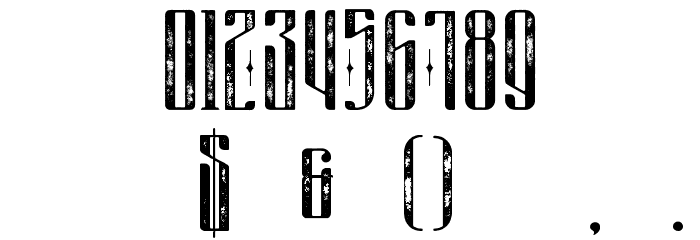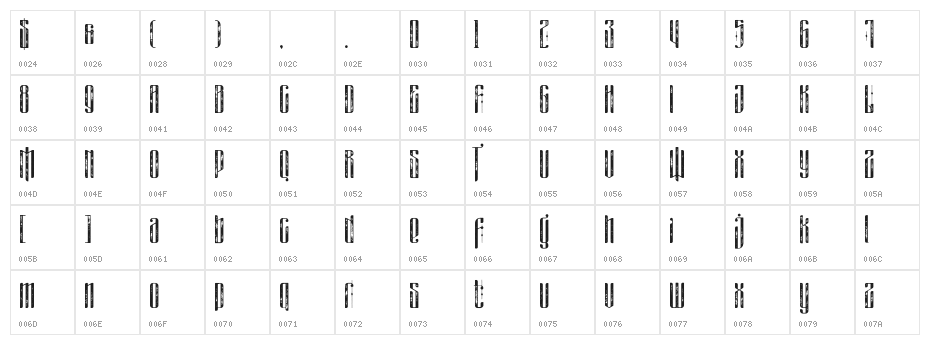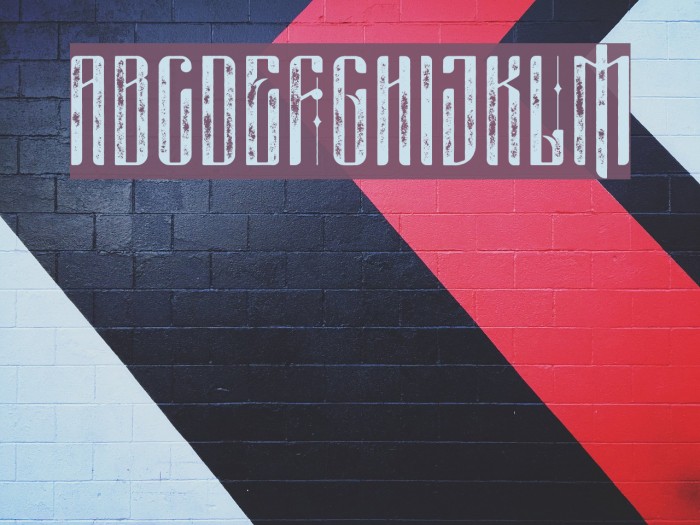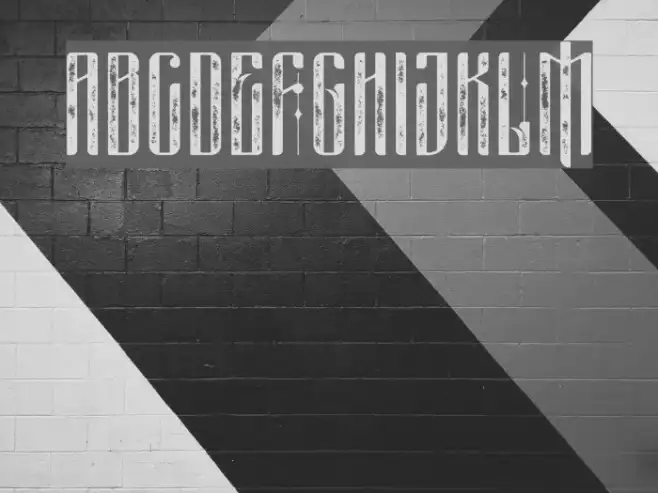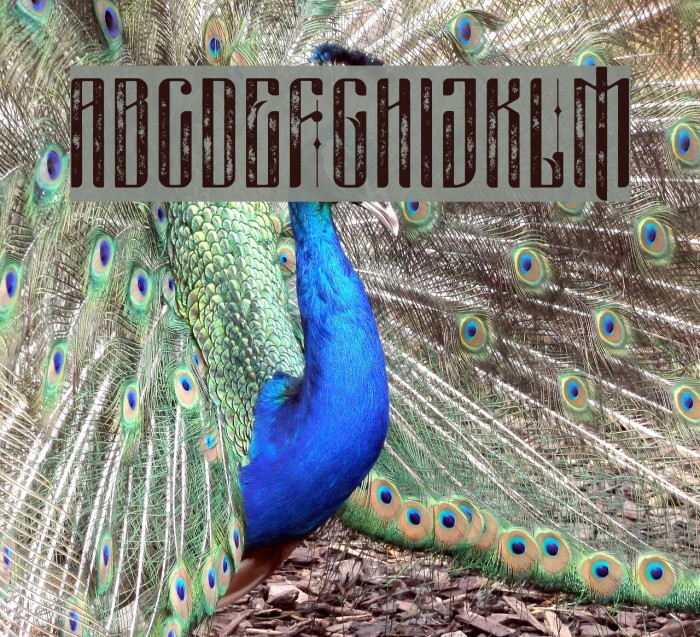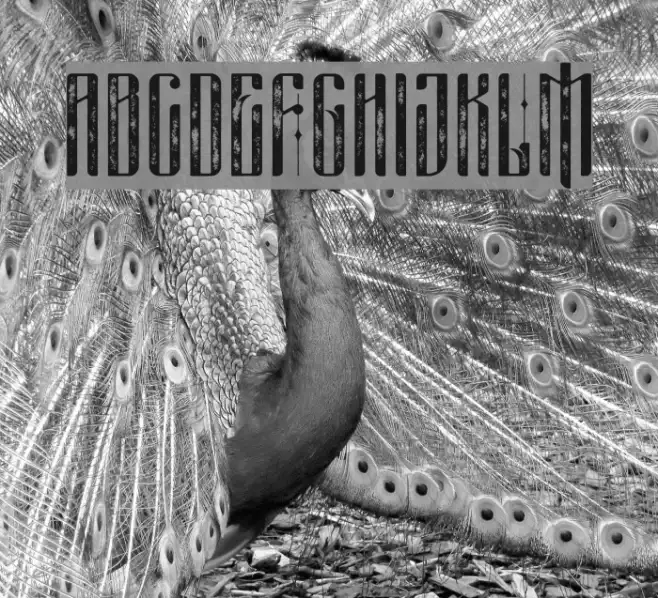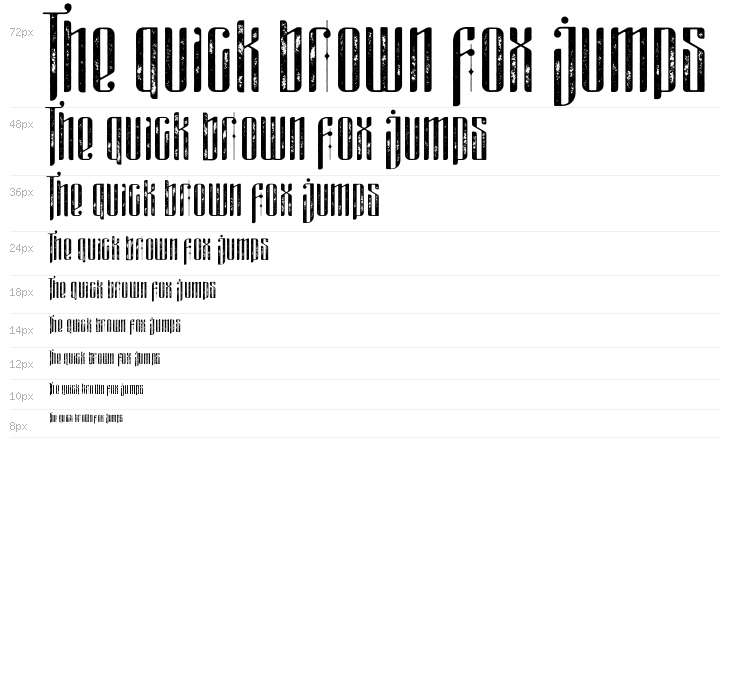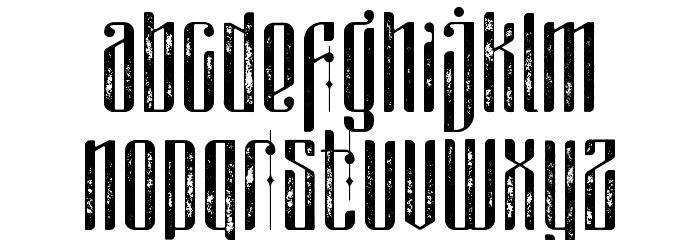
masquerouge rough Font
masquerouge rough Description
This font features a bold, decorative style with a rough, textured appearance that gives it a distressed, vintage feel. The characters are tall and narrow, with sharp, angular serifs that add to its distinctive look. The uppercase and lowercase letters maintain a consistent height, creating a uniform appearance across the text. The numbers and special characters are designed to match the overall aesthetic, with the same rough texture and angular details. This font's unique style makes it stand out, perfect for projects that require a bold statement.
| Proposed Projects | Ideal for posters, album covers, branding, and any project needing a bold, vintage look. |